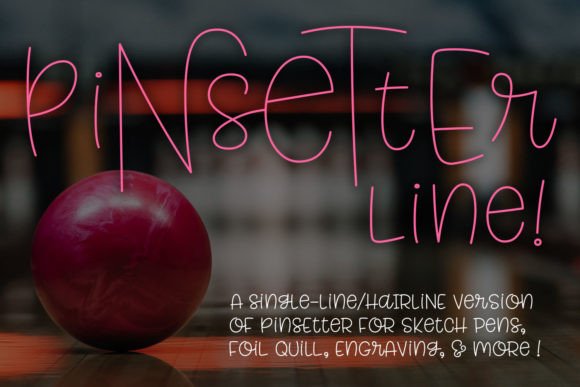
Looking for a stylish, script font to enhance your designs? Look no further than Pinsetter Line! Created by GeekMissy, this font family offers a single-line style for limited programs, as well as a hairline style for most vector-based programs. With three alphabets included, you'll have all the options you need to make your design stand out.
But Pinsetter Line isn't your typical font. Instead, it's meant for use with sketch pens, foil quills, engraving tools, and other stylus or nibs that draw letters with a single line. The result is a unique, eye-catching look that's sure to make your design pop.